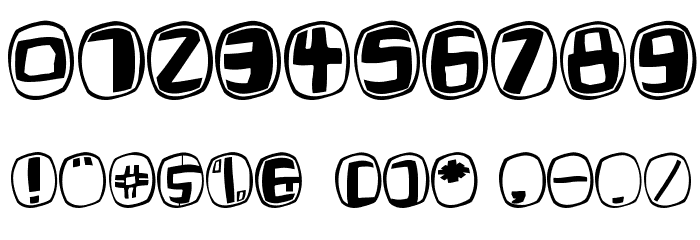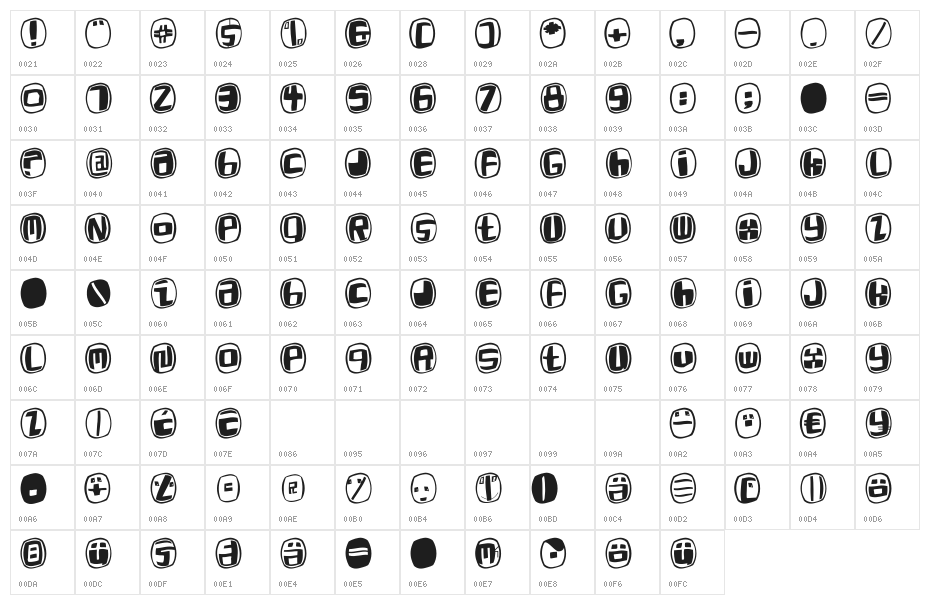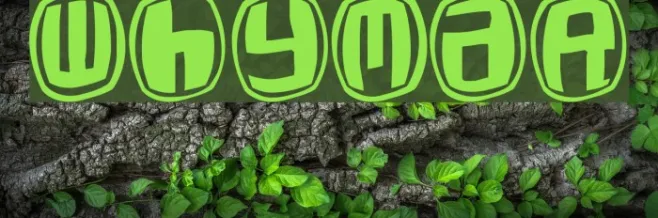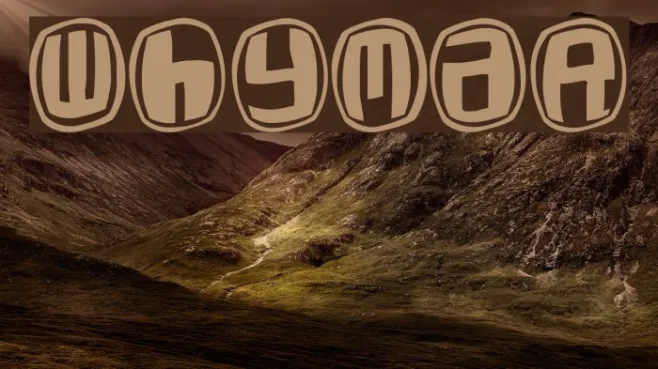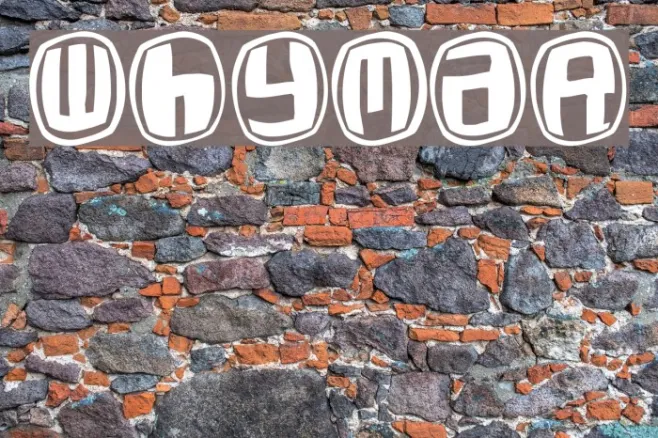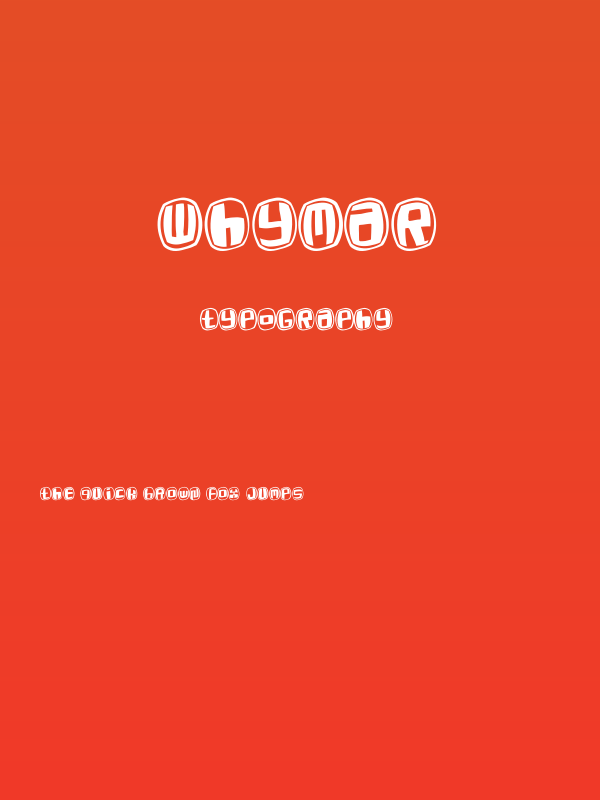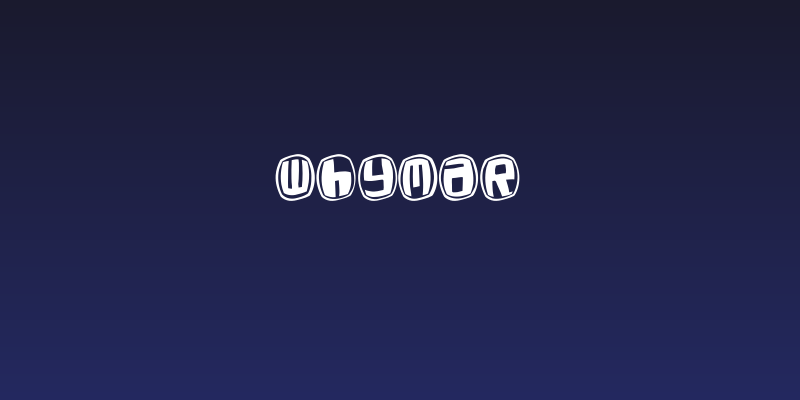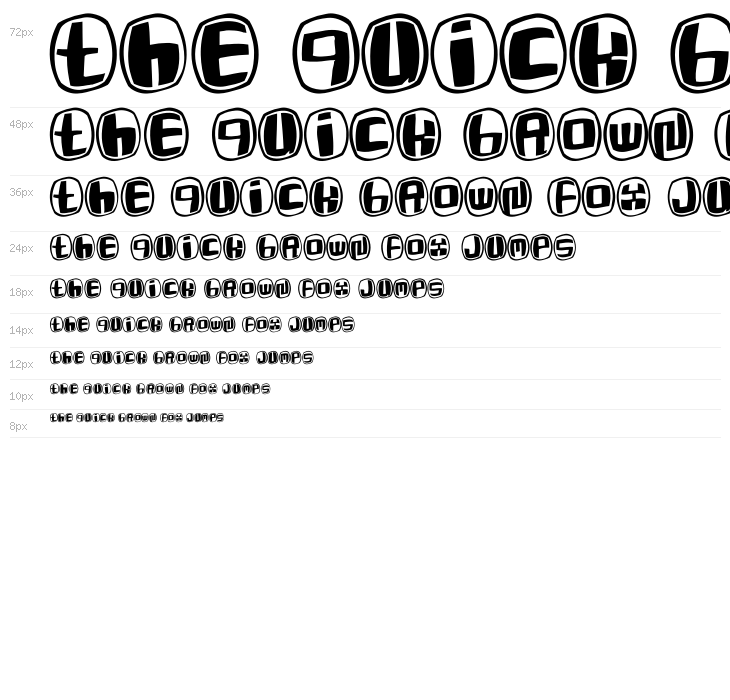
WhyMar Font
WhyMar Description
This font features a playful and bold design with each character enclosed in a rounded, irregular shape, giving it a unique and eye-catching appearance. The letters are uppercase and lowercase, with numbers and special characters, all maintaining a consistent style. The thick strokes and enclosed forms create a sense of fun and creativity, making it ideal for projects that require a distinctive and informal look. The font's quirky style is perfect for children's books, playful branding, or any design that aims to capture attention with a whimsical touch.
| Proposed Projects | Ideal for children's books, playful branding, posters, and creative invitations. |